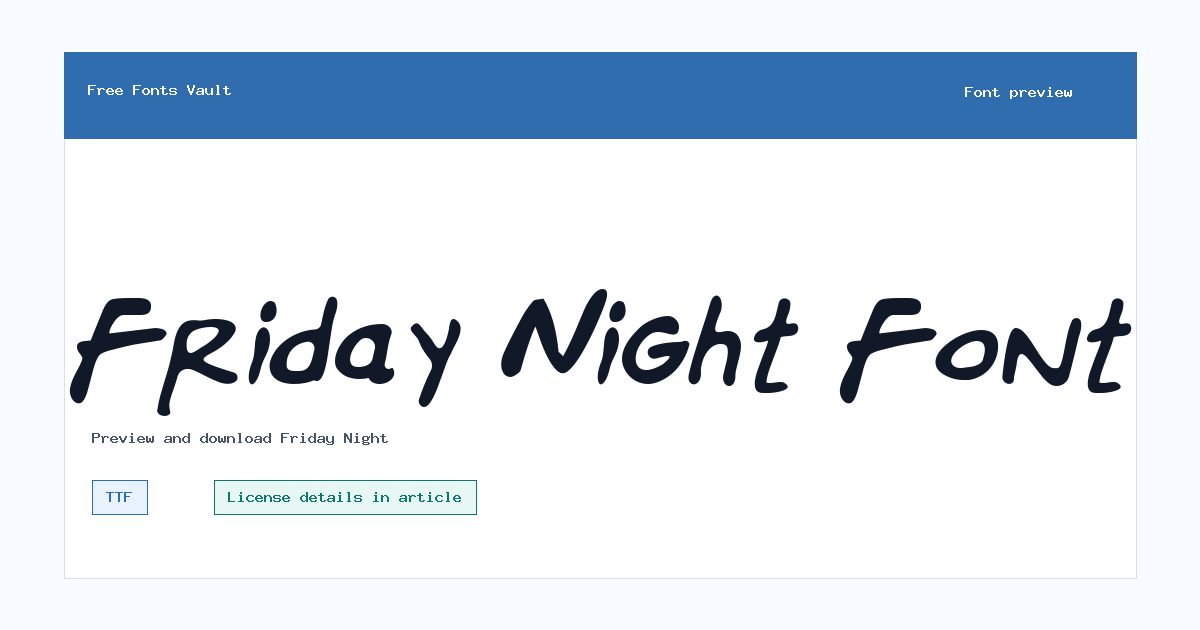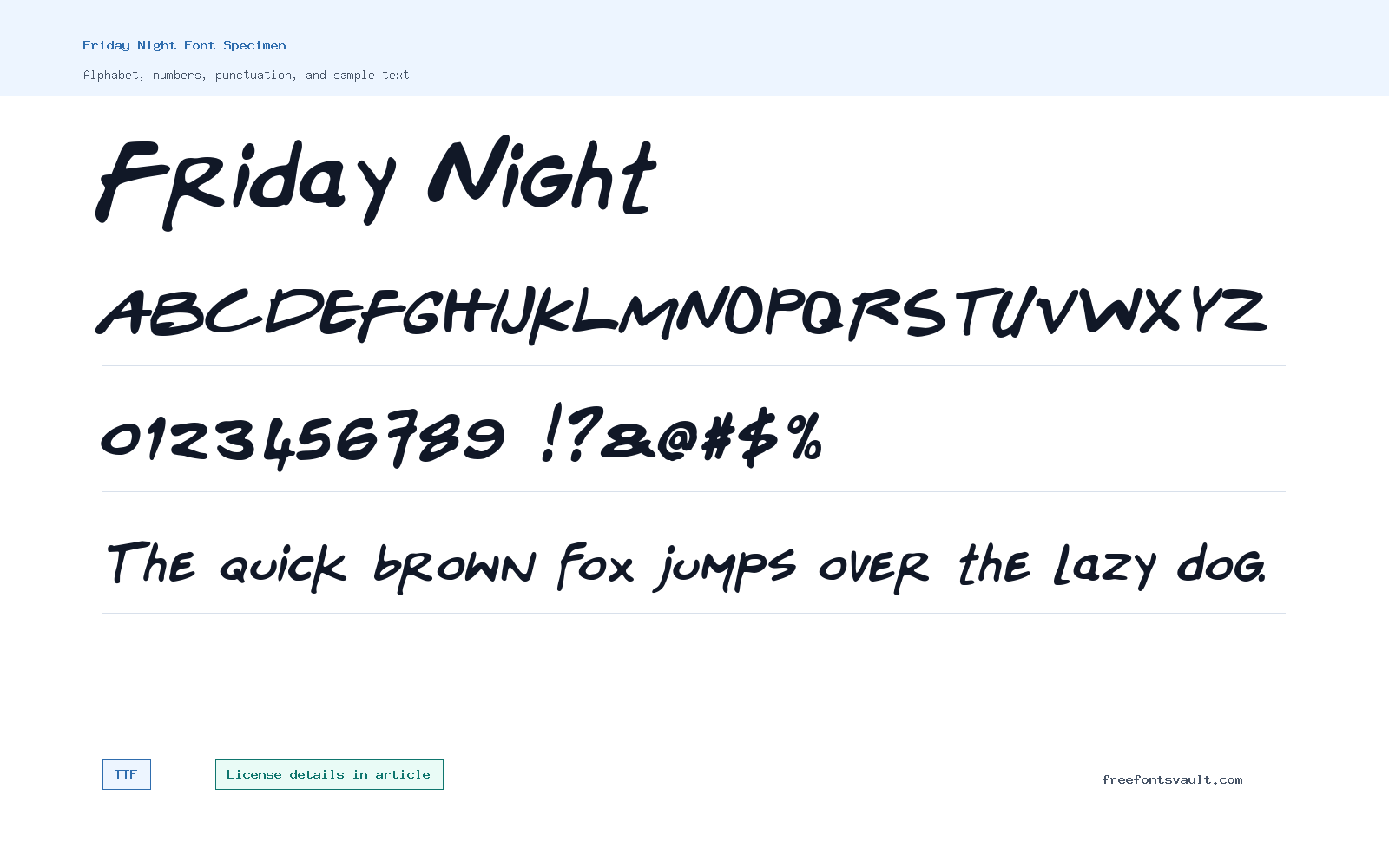
Friday Night
- Designer Impro Studio Designer
Friday Night font.
Friday Night is a regular TTF font with a casual display feel, suited to short text where the name, mood, and visual rhythm can do the work quickly.
About Friday Night Font
Friday Night works best when used as a display face rather than a long-reading font. Its name suggests a relaxed, event-ready style, so it is a good candidate to test for party graphics, nightlife-themed headings, invitation text, social posts, and bold title treatments.
This kind of font is strongest when the message is short and energetic. Think of event names, music-night titles, club graphics, informal posters, or social posts where the text needs personality at a glance. If the design has important details such as venue, date, price, or terms, keep those in a simpler companion font so visitors can read them quickly.
- Casual display tone for short, event-style lettering
- Works best when used as a headline accent instead of a full reading font
- Event titles, party flyers, and nightlife-themed graphics
- Short headings, social media text, and poster-style layouts
- Invitation headers, playlist covers, club-night graphics, and quick promotional mockups
- Design tests where a relaxed title font needs to be compared with cleaner supporting type
Keep it for short, attention-focused text. For body copy or longer descriptions, pair it with a clean, readable sans serif and test spacing at the final display size. Use stronger contrast if the font sits on a photo or dark event background.
Is Friday Night good for long paragraphs?
It is better suited to short display text. Use it for headings or graphic text, then pair it with a simpler font for longer reading.